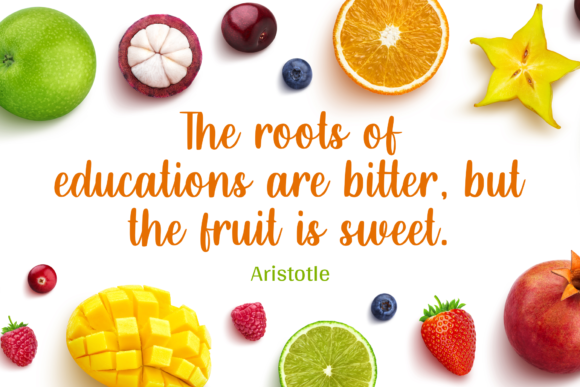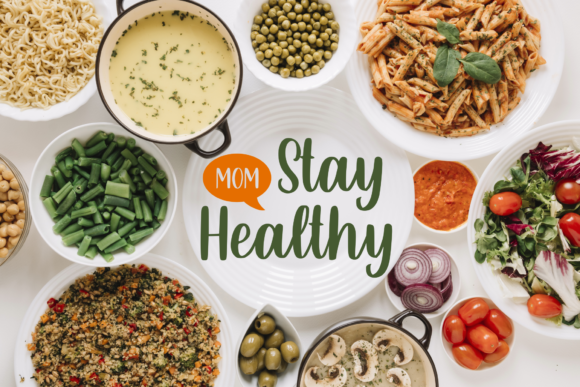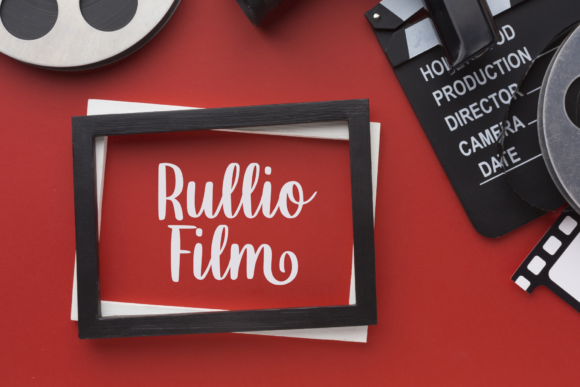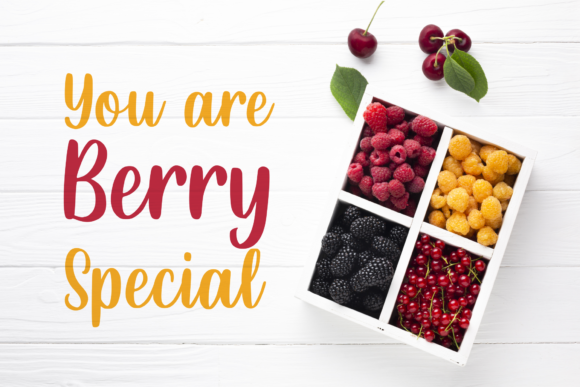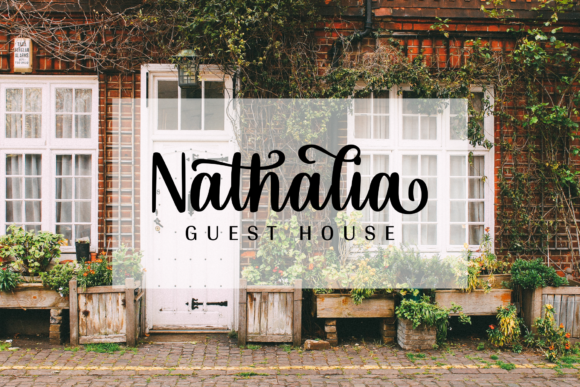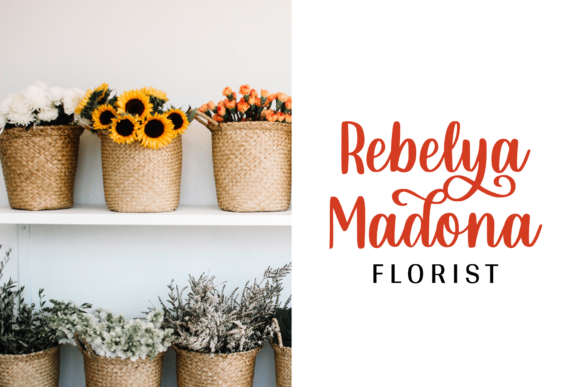
Discovering the Perfect Brushstroke: Bright Cherry Font
Remember the moment when you stumbled upon the perfect font, and your creative world was suddenly filled with endless possibilities? For many designers, that moment is what makes the job worthwhile. For me, it was discovering the Bright Cherry Font – a magical handwritten font that combines timeless elegance with authentic calligraphy.
This beautiful font is not just a pretty face; it’s a carefully crafted tool designed to elevate your designs to the next level. Whether you’re a seasoned pro or a budding designer, the Bright Cherry Font is the perfect addition to your toolkit. Its classic style and friendly feel make it the perfect choice for creating original and outstanding designs that truly stand out.
As a valuable asset for designers, the Bright Cherry Font offers a level of sophistication and creativity that’s hard to find in other fonts. Its unique blend of elegance and authenticity makes it a must-have for anyone looking to add a touch of magic to their designs.
Bright Cherry Font Key Features
- Unique Characteristics: Bright Cherry Font features a vibrant, energetic feel with a unique blend of modern and classic elements, making it perfect for headlines, titles, and other attention-grabbing text.
Designer Review: Bright Cherry Font
First off, I have to say that Bright Cherry Font is a real showstopper. The unique combination of warm and bright tones ✨ makes it perfect for projects that need a bit of a pop. The font is highly legible, and the various weights and styles make it versatile enough to use in a wide range of applications.
Some of the standout features of Bright Cherry Font include:
- ✨ Unique and eye-catching design
- Highly legible and readable
- Multiple weights and styles to choose from
- Works well in digital and print applications
However, I do have to mention a few limitations ⚠️:
- ⚠️ May not be suitable for projects that require a more minimalist or serious tone
- ⚠️ Some users may find the font too flashy or overbearing
- ⚠️ Limited language support, may not be compatible with non-English text
Overall, I think Bright Cherry Font is a great choice for designers who want to add a bit of personality to their projects. With its unique design and versatility, it’s definitely worth considering for your next design project.
Getting the Most Out of the Bright Cherry Font
To get the most out of the Bright Cherry font, consider the following tips:
– Use it to create eye-catching headings and titles.
– Pair it with other bold fonts for a striking contrast.
– Experiment with different font sizes and colors to create visual interest.
The Bright Cherry font is commonly used for:
– Headings and titles in branding and marketing materials.
– Bold typography in social media posts and graphics.
– Creative projects that require a playful and energetic feel.